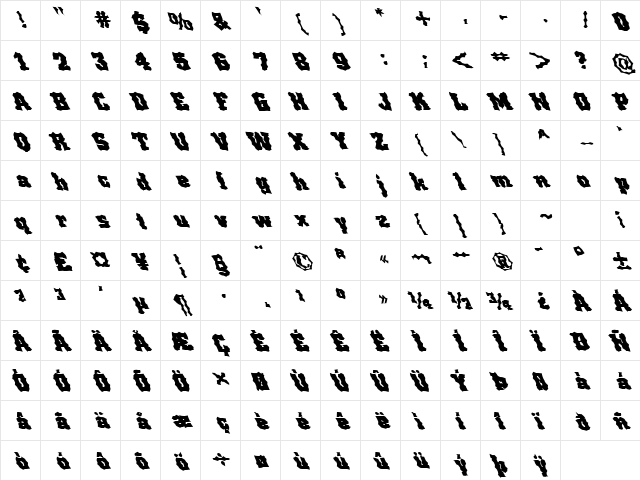
FZ WACKY 67 LEFTY Normal Font Preview
FZ WACKY 67 LEFTY Normal
Design Context for FZ WACKY 67 LEFTY Typeface
FZ WACKY 67 LEFTY is a composed and adaptable typeface that performs quietly and consistently across a wide range of design contexts.
Pro Tip: Use FZ WACKY 67 LEFTY in both headline and body roles to test its range before committing to a single application.